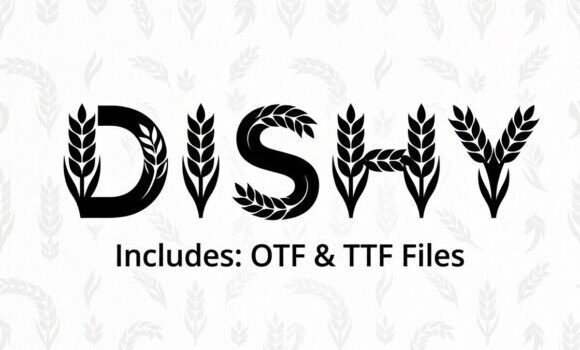
Dishy Font – Free Download Introduction to Dishy Font Celebrate the bounty of nature with Dishy, a unique display font where typography meets agriculture. 📸 Preview Gallery 3 images 📌 Product Name Dishy Font 👤 Author mail.skygroup 📂 Category Explore